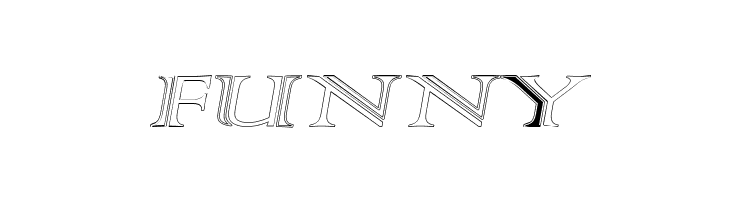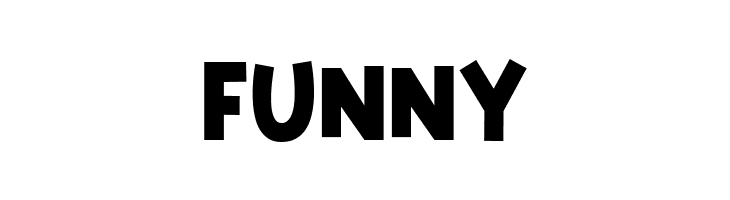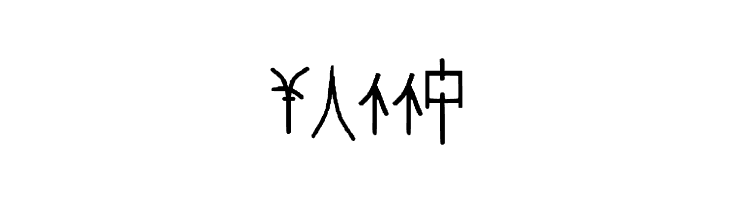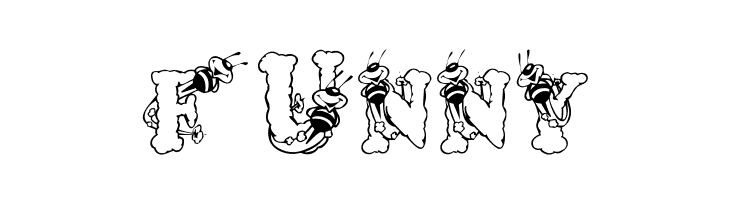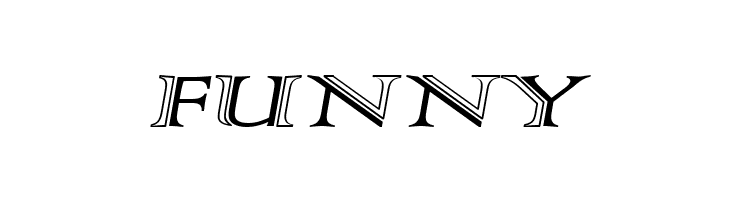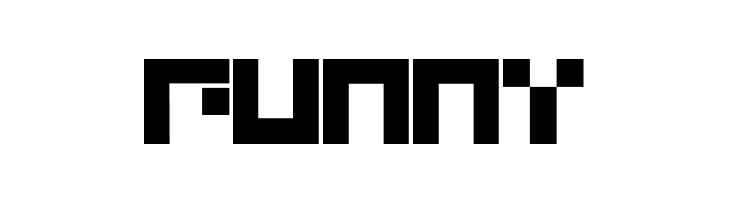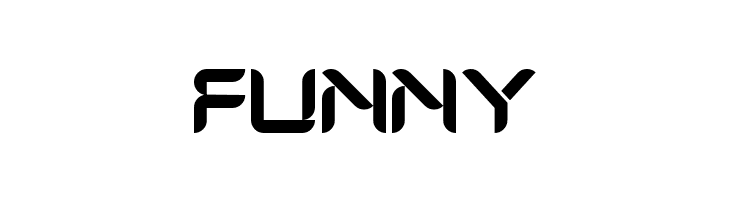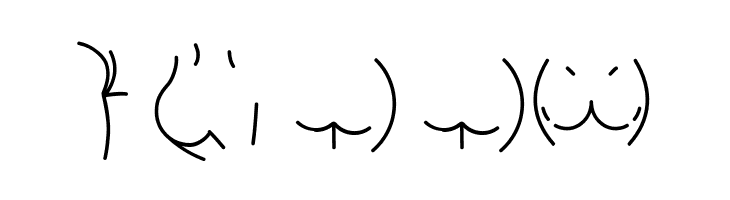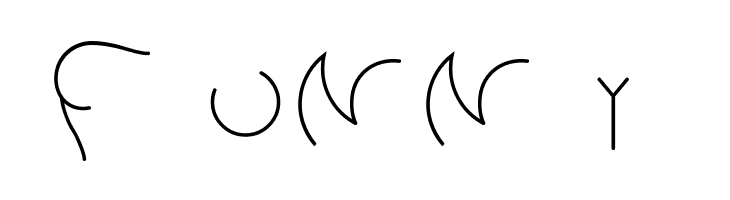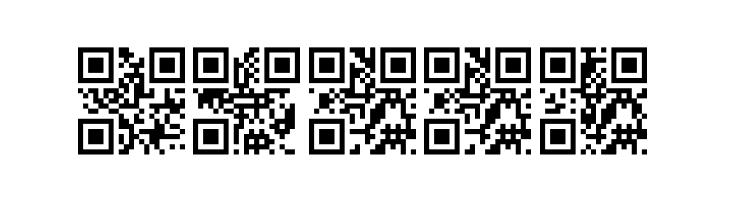
A playful, whimsical font with exaggerated curves and varying stroke widths.
A playful, hand-drawn font with characters enclosed in sketched squares.
A playful and humorous font using punctuation marks to create whimsical designs.
A whimsical and playful font with thin, curvy lines and abstract shapes.
A bold, geometric font with uniform stroke widths and a modern, structured design.
A modern, geometric font with bold, angular letterforms and a futuristic aesthetic.
Abstract, geometric font with a coded, ancient script appearance.
A modern, pixelated font with a digital, futuristic style.
A bold, handwritten-style font with dynamic, sweeping strokes.
A dynamic, brush-stroke font with an edgy and expressive style.
A bold, geometric font with a playful and modern style.
A bold, playful handwritten font with dynamic strokes and a casual style.
A futuristic, bold font with geometric and angular shapes, ideal for tech-inspired designs.
A symbolic, QR code-inspired set for encoding alphanumeric data.
A display font using QR code-inspired symbols for each character.
A lively handwritten font with expressive, fluid strokes and a casual elegance.
A dynamic and angular font with a modern, energetic style.
A modern, hollow font with a decorative and three-dimensional appearance.
A decorative, rope-like font with a bold, geometric style.
A bold, 3D-effect font with clean lines and a modern aesthetic.